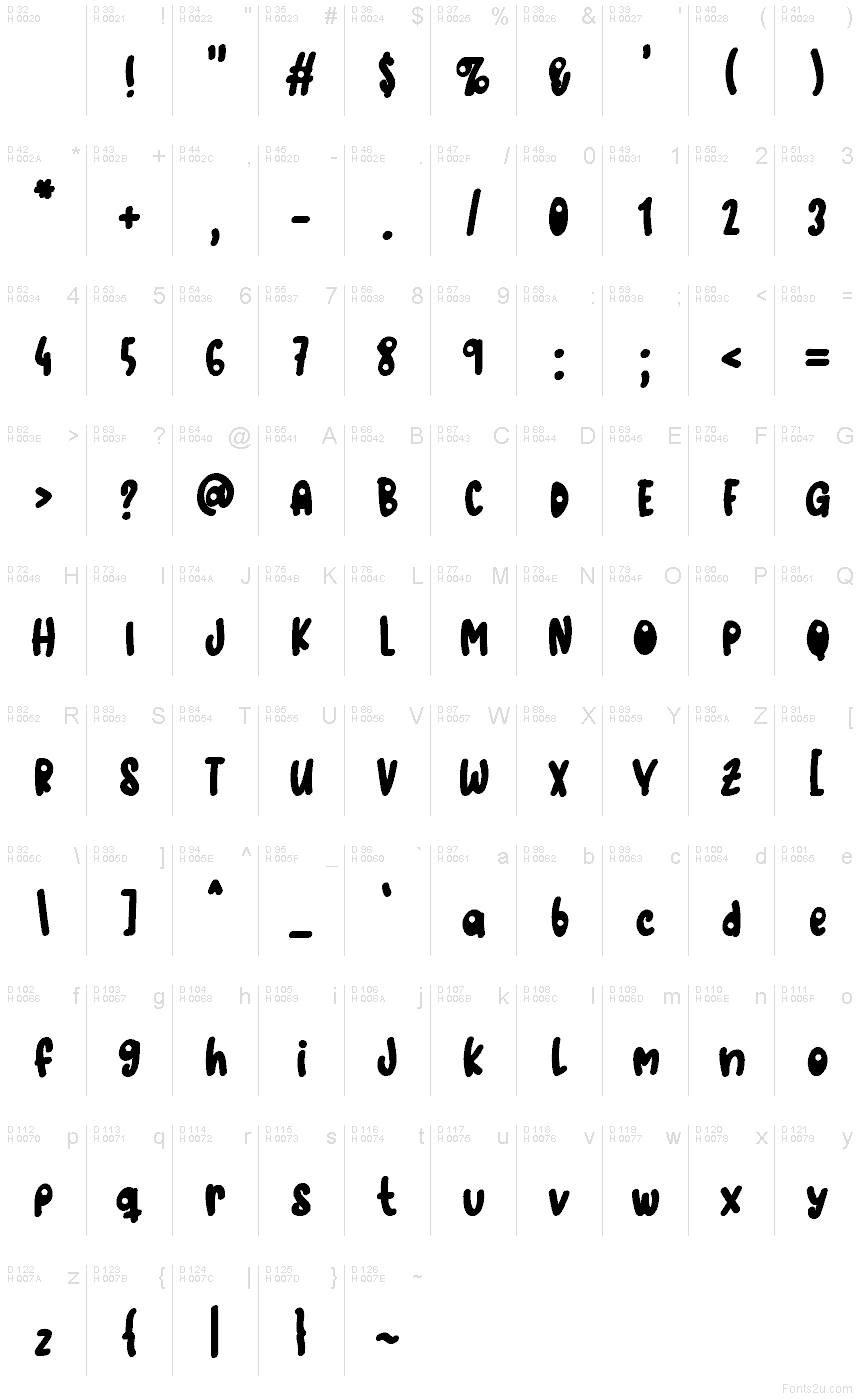
Star Space
Star Space font by Dm Letter Studio - Dimas Prasetyo is a free bubbly decorative display font. Built around soft, pillowy shapes and chunky, ink-splotch curves, it reads like foam letters cut from felt—friendly, weighty, and irresistibly touchable. The generous counters and rounded terminals keep dense words airy, while the rhythmic bounce between letters adds playful motion without turning messy.
Using Star Space, headlines pop on kids’ book covers, toy packaging, STEM fair posters, party invitations, snack branding, and app splash screens. This free font shines when set large; then anchor it with a clean geometric sans for body copy to balance the squish with clarity.